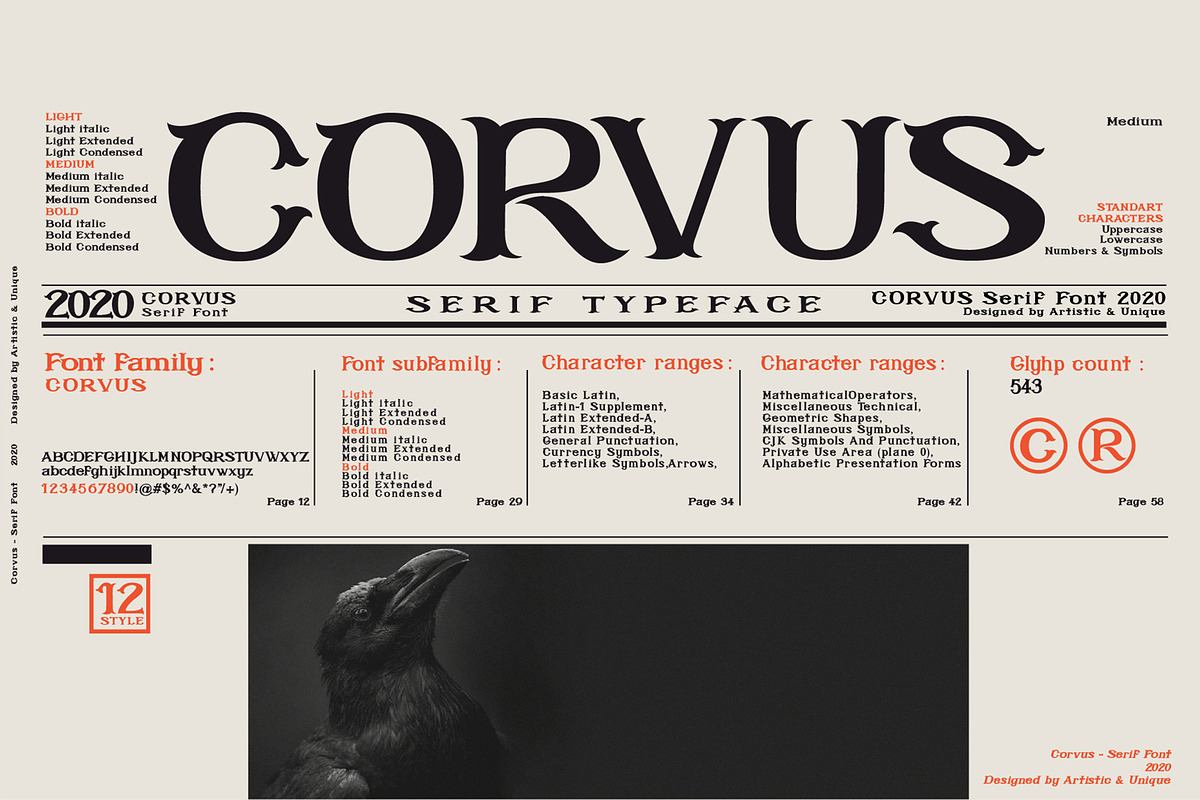
CORVUS Serif Font is perfect for sophisticated editorial design, prestigious book publishing, distinguished logo creation, upscale business communications, cultural institution materials, academic publications, luxury brand identities, refined magazine layouts, authoritative signage systems, professional corporate presentations, elegant packaging design, and distinguished typography applications.
CORVUS Serif Font is exciting because it embodies intellectual authority and timeless sophistication through its commanding serif letterforms that capture the wisdom, dignity, and scholarly excellence associated with the intelligent corvus family of birds known for their remarkable intelligence and adaptability. This distinguished typeface features strong character proportions with refined serif details that create an atmosphere of academic gravitas and professional competence. The font's authoritative aesthetic speaks to audiences who value intelligence, tradition, and the enduring power of knowledge and scholarly achievement.
CORVUS Serif Font includes comprehensive font families: Regular Scholarly Style, Bold Authoritative Weight, Light Intelligent Touch, Medium Academic Balance, Italic Flowing Wisdom, Condensed Professional Format, Extended Prestigious Width, Ultra Bold Statement, Thin Elegant Version, and Special Academic Symbols, providing complete solutions for scholarly and professional typography needs that demand intellectual authority and sophisticated presence.
This distinguished typography solution transforms standard communications into authoritative scholarly experiences through its academic aesthetic and intellectual design principles. CORVUS Serif Font Free Download enables designers and professional organizations to access premium scholarly typography that instantly adds authority, intelligence, and academic sophistication to any creative project. The font's meticulously crafted proportions ensure exceptional readability while maintaining distinctive scholarly character and professional gravitas.
Academic institutions, publishing houses, and professional organizations trust CORVUS Serif Font for its ability to communicate intelligence, authority, and scholarly excellence to audiences seeking credible information and professional expertise. The typeface's commanding construction performs beautifully across various applications, from intimate academic communications to large-scale institutional branding campaigns. Its extensive character support includes multilingual capabilities and scholarly design elements that enhance authoritative professional presentations.
The design philosophy behind CORVUS Serif Font celebrates the intersection of intelligence and tradition, creating typography that honors academic heritage while serving contemporary professional communication needs. This intelligence-focused approach creates a font that feels genuinely scholarly while maintaining contemporary relevance across different academic contexts and professional brand expressions.
Whether creating academic institution identities, scholarly publication materials, or professional marketing campaigns, this serif font delivers exceptional results that command respect and communicate intellectual authority. Download CORVUS Serif Font today and discover how premium scholarly typography can transform your design projects into authoritative expressions of academic excellence, professional competence, and the intelligent sophistication that defines the most respected educational and professional communications.